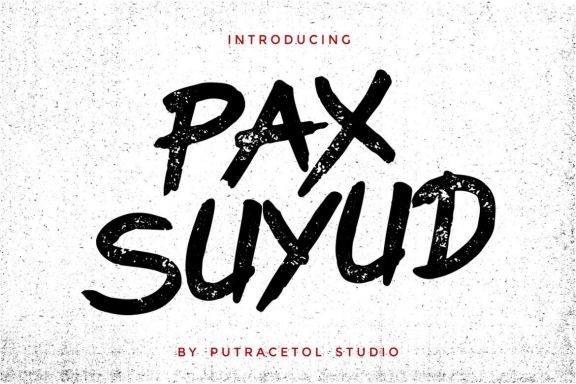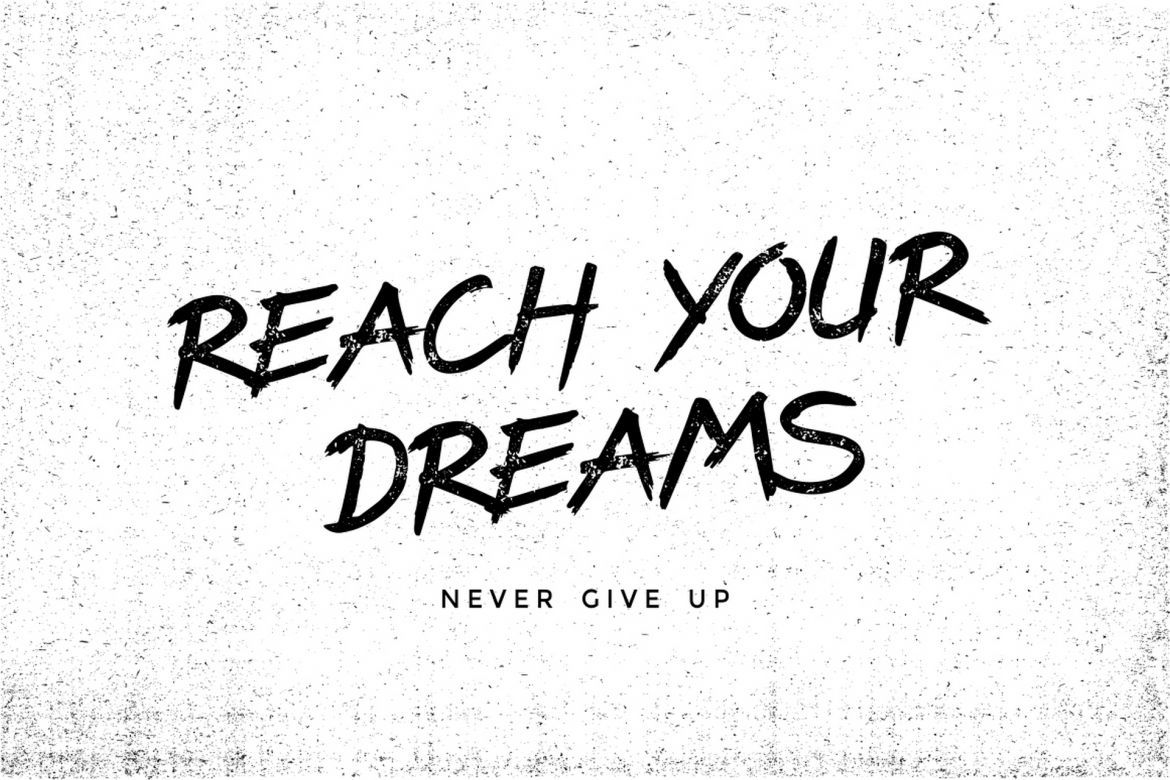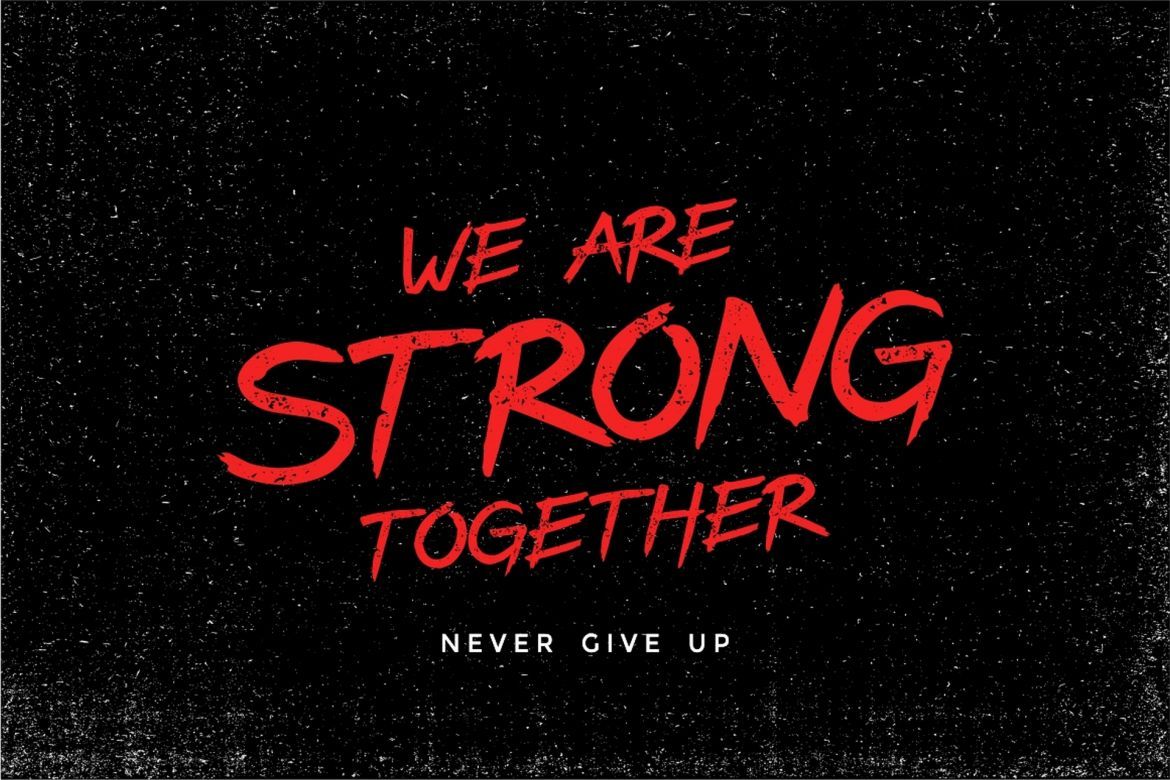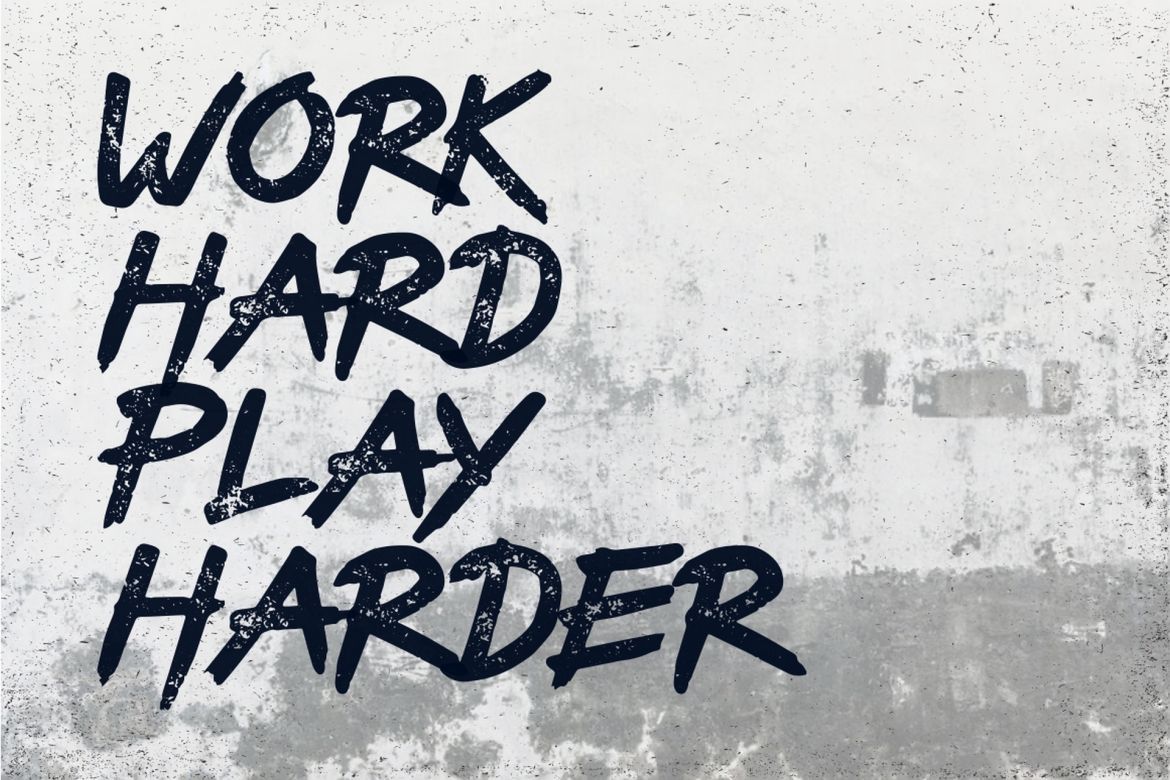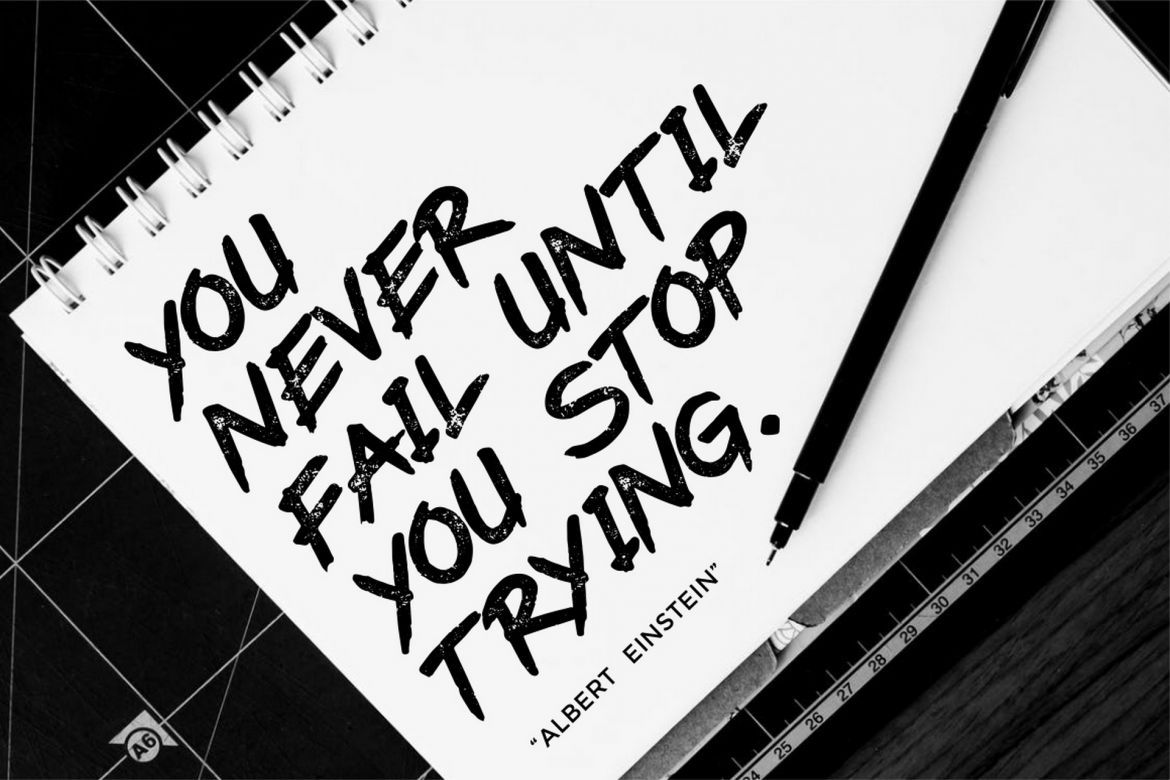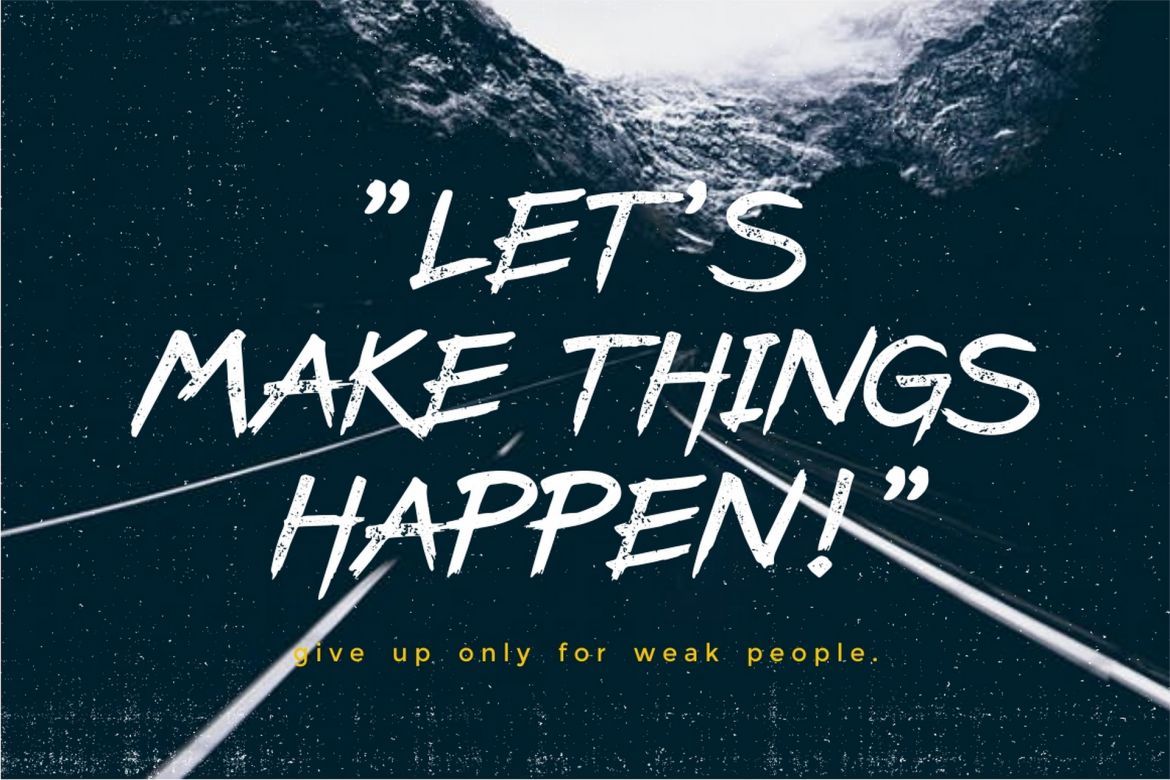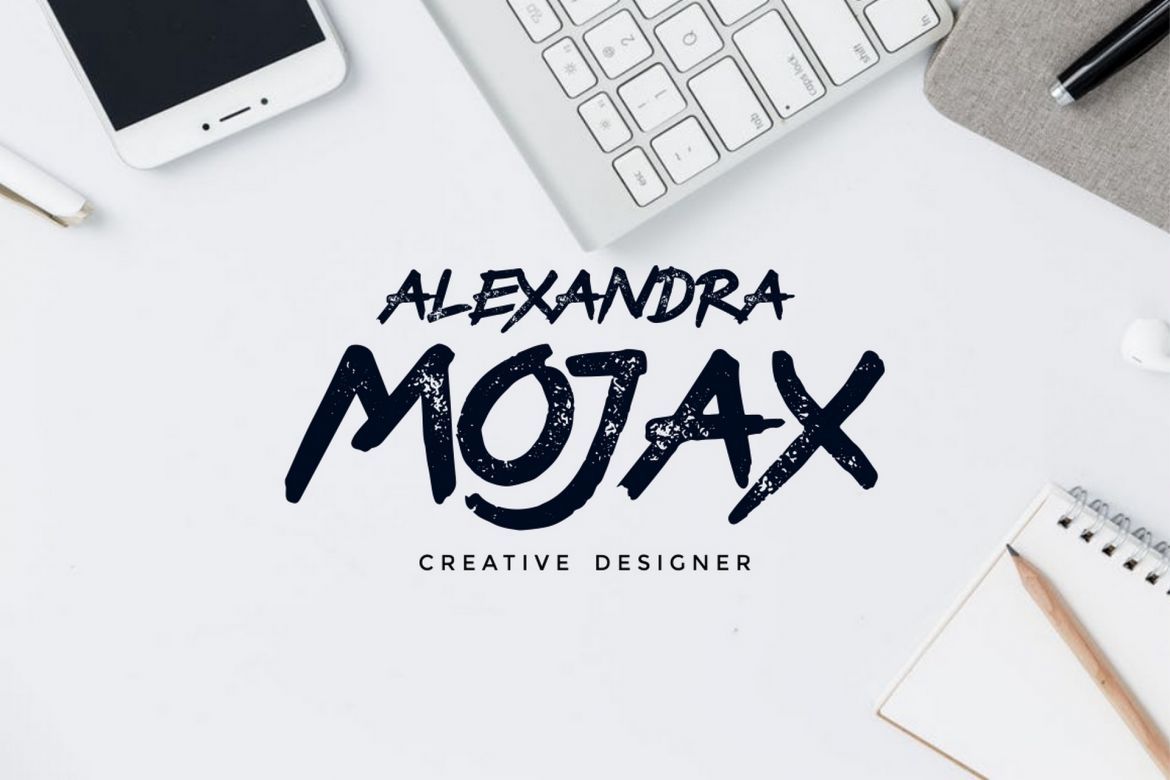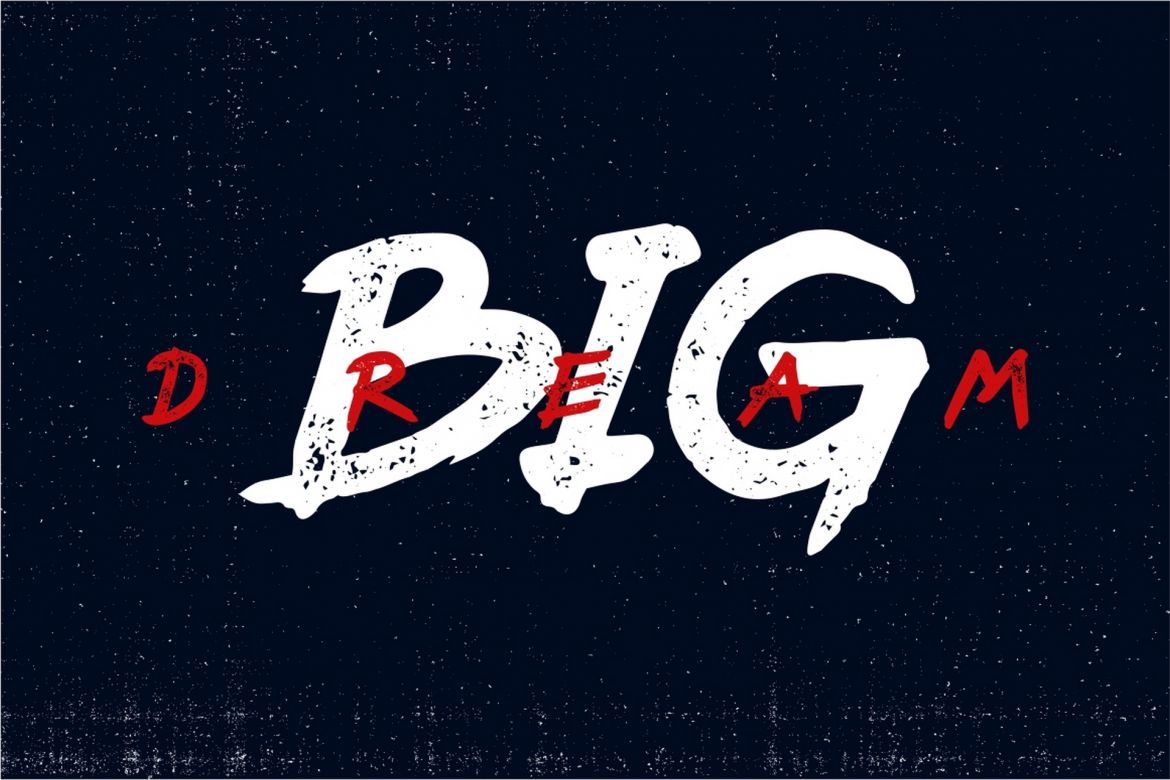
Pax Suyud Font
PaxSuyud is a hand-drawn brush font with rough style. PaxSuyud available in Regular and Bold font. .Ideal for logos, quotes, product packaging, tittle header, poster, packaging, social media, labels, branding & greeting cards.
• all caps font
• regular & bold